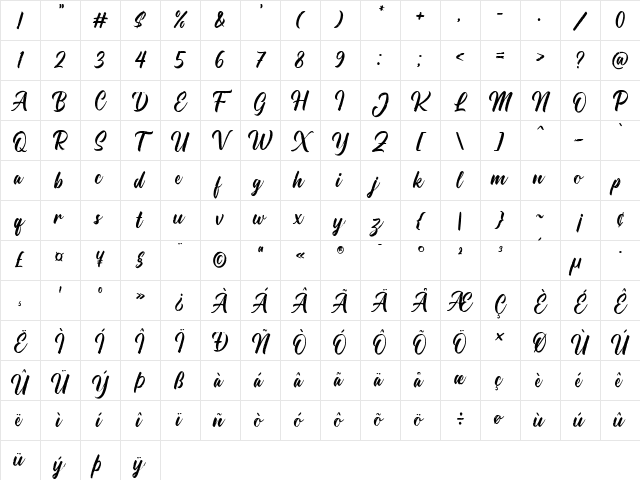
Hallington Regular
Foundry: Hendra Pratama
Designer: Hendra Pratama
Complete Hallington Regular glyph index. Displaying only characters natively supported by Hallington Regular font.
Design Context for Hallington
Hallington is a composed and adaptable typeface that performs quietly and consistently across a wide range of design contexts.